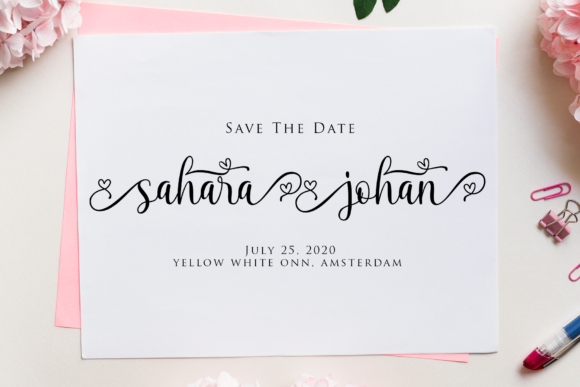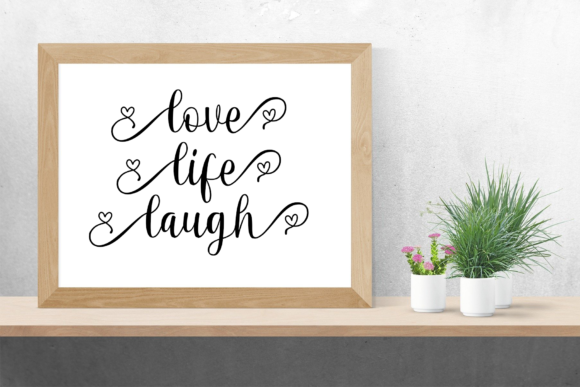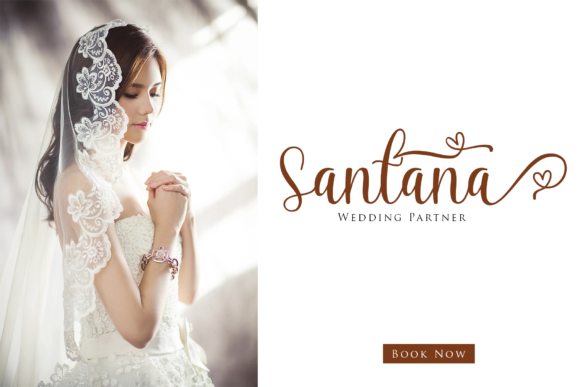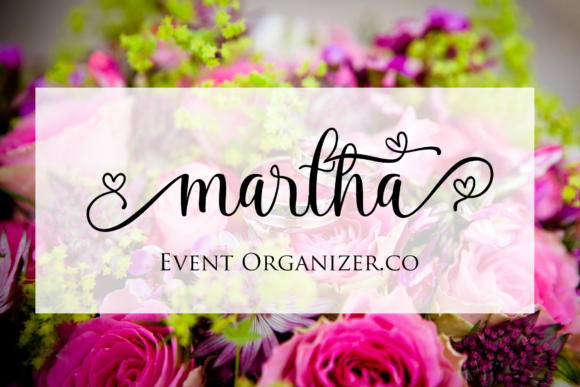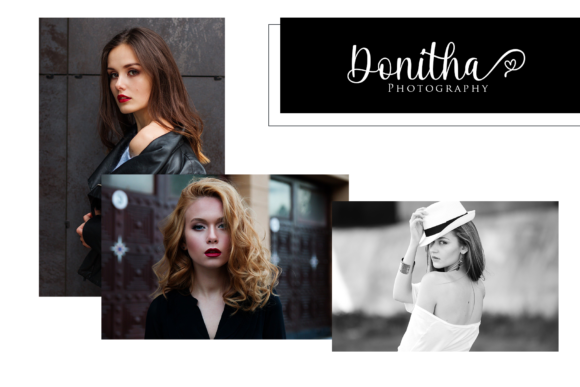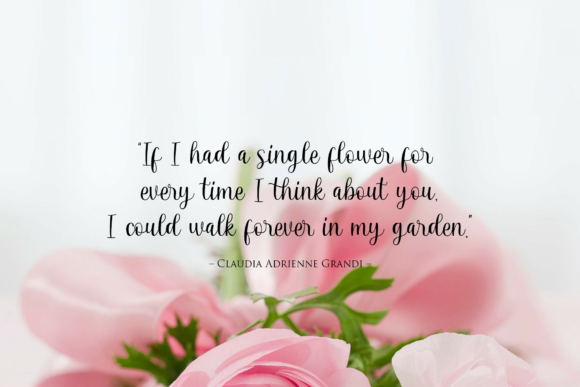
Introducing Beloving Font: Elevate Your Craft Projects with Elegance and Charm
Are you a designer, crafter, or DIY enthusiast looking for a font that can add a touch of sophistication and whimsy to your projects? Look no further than Beloving Font, a fun and charming typeface that is sure to capture your heart. With its gorgeous swashes and traditional calligraphy feel, Beloving Font is the perfect addition to any craft project, from handmade cards and invitations to branding and marketing materials.
The Beauty of Beloving Font
Beloving Font is a beautifully designed font that boasts an elegant and refined aesthetic. Its classic calligraphy style is reminiscent of traditional handwriting, with flowing lines and delicate swashes that add a touch of luxury to any design. The font’s charming and whimsical feel makes it perfect for a wide range of projects, from formal events and weddings to more casual and creative endeavors.
Key Features of Beloving Font
- Gorgeous Swashes: Beloving Font features stunning swashes that can be used to add a decorative touch to your designs. With a range of swash options to choose from, you can customize your text to suit your project’s style and tone.
- Traditional Calligraphy Feel: Beloving Font’s classic calligraphy style gives it a timeless and sophisticated feel that’s perfect for projects that require a touch of elegance.
- Fun and Charming: Despite its refined aesthetic, Beloving Font has a playful and charming personality that’s sure to bring a smile to your face.
Beloving Font is a versatile typeface that’s perfect for a wide range of design and crafting applications. Here are just a few ideas to get you started:
- Handmade Cards and Invitations: Add a touch of elegance and whimsy to your handmade cards and invitations with Beloving Font.
- Wedding and Event Design: Use Beloving Font to create stunning wedding and event designs, from save-the-dates to thank-you cards.
- Branding and Marketing: Add a touch of sophistication and charm to your branding and marketing materials, from logos to social media graphics.
- DIY Projects: Use Beloving Font to add a personal touch to your DIY projects, from scrapbooking to home decor.
Tips for Using Beloving Font
Here are a few tips for getting the most out of Beloving Font:
- Experiment with Swashes: Don’t be afraid to experiment with Beloving Font’s gorgeous swashes. Try different combinations to find the perfect look for your project.
- Mix and Match: Combine Beloving Font with other fonts and design elements to create a unique and eye-catching design.
- Pay Attention to Size and Scale: Make sure to adjust the size and scale of your text to suit your project’s needs. Beloving Font looks beautiful in large and small sizes, but it’s essential to ensure it’s legible and visually appealing.